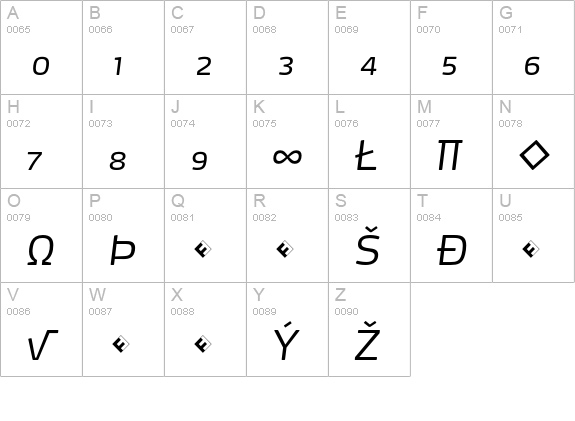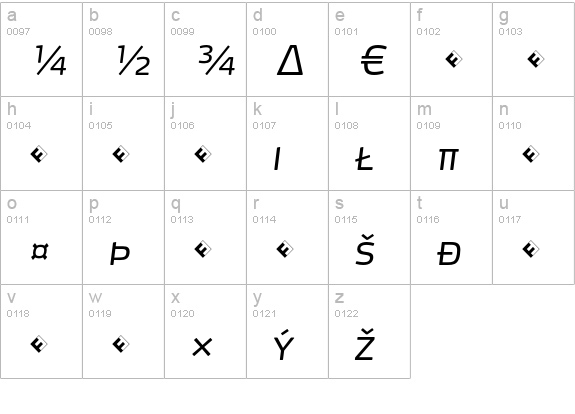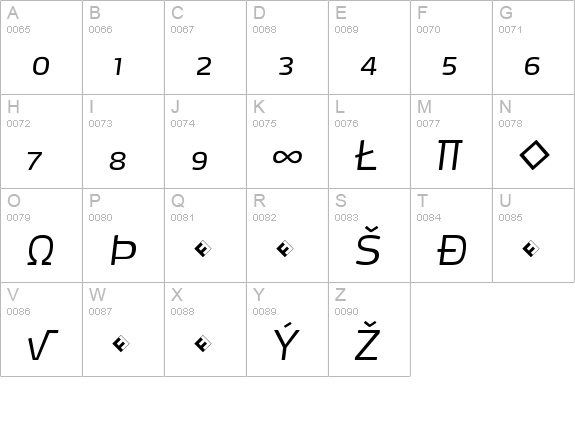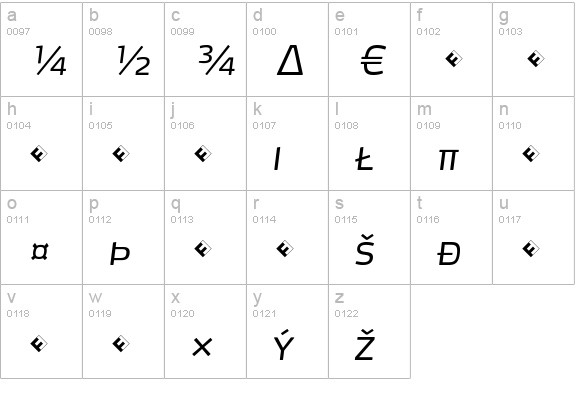
Max-LightItalicSCExpert font is a sleek and elegant typeface that exudes sophistication and modernity. With its slender and stylish design, this font is perfect for adding a touch of class to any project. The italic style adds a sense of flair and dynamism, making it ideal for use in headings, logos, and branding materials. What's even better is that Max-LightItalicSCExpert font is available for free download at FontsMarket.com. Now you can elevate your designs with this stunning font without breaking the bank. Don't miss out on the opportunity to enhance your projects with the beauty and versatility of Max-LightItalicSCExpert font. Download it today and see the difference it can make in your creative endeavors.